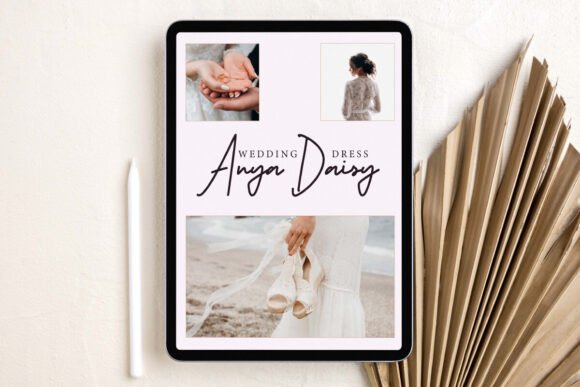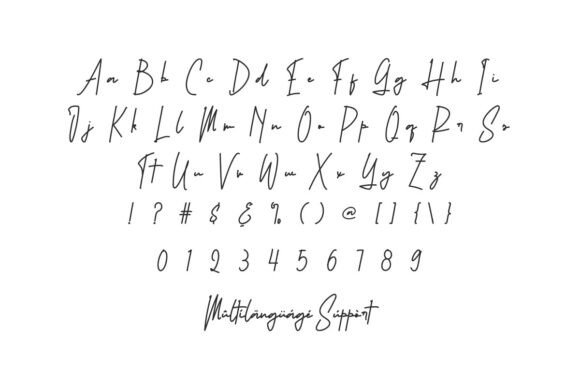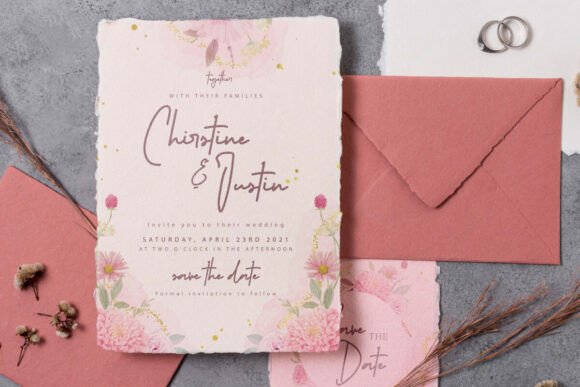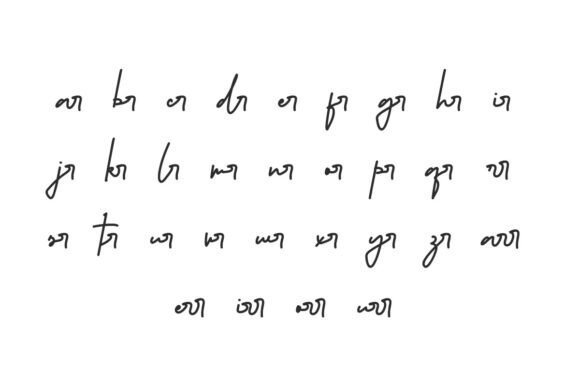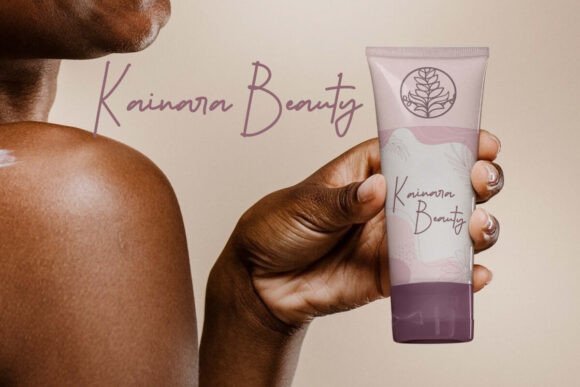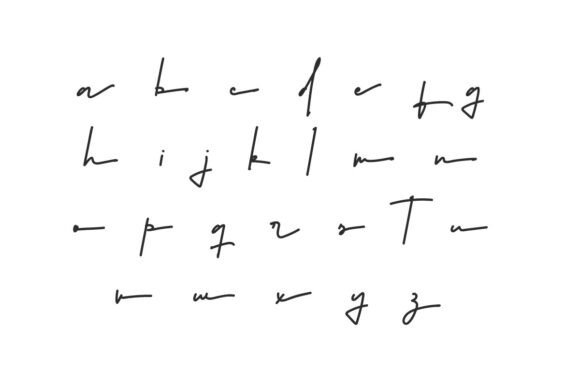
Hari Yang Indah Font: Elevate Your Designs with Elegance
Are you a designer or crafter looking for a font that can add a touch of elegance and sophistication to your projects? Look no further than Hari Yang Indah Font, a beautiful handwritten font with a light monoline lettering style. This stunning font is perfect for a wide range of design applications, from branding and packaging to stationery and digital media.
What Makes Hari Yang Indah Font So Special?
Hari Yang Indah Font boasts its own unique charm that sets it apart from other fonts. Its light monoline lettering style gives it a delicate and refined look that’s perfect for designs that require a touch of sophistication. Whether you’re creating a logo, brochure, or social media graphic, this font is sure to elevate your design and make it stand out.
One of the best things about Hari Yang Indah Font is its versatility. It’s perfect for a wide range of design applications, including:
- Apps: Create a stunning app design that showcases your brand’s personality.
- Brand Logo: Establish your brand’s identity with a beautiful and memorable logo.
- Brochure: Create a brochure that effectively communicates your message and showcases your products or services.
- Catalog: Design a catalog that’s both informative and visually appealing.
- Cover: Create a stunning cover design for your book, magazine, or digital publication.
- Creative Template: Use Hari Yang Indah Font to create a unique and eye-catching template for your next design project.
- Greeting Card: Add a personal touch to your greeting cards with this beautiful font.
- Invitation: Create stunning invitations that set the tone for your event or celebration.
- Label: Design labels that are both functional and visually appealing.
- Mockup: Use Hari Yang Indah Font to create a realistic mockup of your design.
- Price Tag: Create price tags that are both informative and visually appealing.
- Product Packaging: Elevate your product packaging with a beautiful and elegant font.
- Screen Print: Use Hari Yang Indah Font to create stunning screen prints for your next design project.
- Signage: Create eye-catching signage that effectively communicates your message.
- Signature: Add a personal touch to your signature with this beautiful font.
- Stationery: Create stunning stationery that showcases your brand’s personality.
- Sticker: Design stickers that are both fun and visually appealing.
- Title: Use Hari Yang Indah Font to create stunning titles for your next design project.
- Watermark: Add a touch of elegance to your watermark with this beautiful font.
- Website: Use Hari Yang Indah Font to create a stunning website that showcases your brand’s personality.
Why Choose Hari Yang Indah Font?
There are many reasons why designers and crafters choose Hari Yang Indah Font for their projects. Here are just a few:
- Unique and elegant design: Hari Yang Indah Font has a unique and elegant design that’s sure to elevate your projects.
- Versatile: This font is perfect for a wide range of design applications.
- Easy to read: Hari Yang Indah Font is easy to read, making it perfect for body text and headings.
- Scalable: This font is highly scalable, making it perfect for use in a variety of design applications.
Tips for Using Hari Yang Indah Font
Here are a few tips for using Hari Yang Indah Font in your designs:
- Use it sparingly: While Hari Yang Indah Font is beautiful, it’s best to use it sparingly to avoid overwhelming your design.
- Pair it with other fonts: Experiment with pairing Hari Yang Indah Font with other fonts to create a unique and visually appealing design.
- Adjust the size and color: Adjust the size and color of Hari Yang Indah Font to suit your design needs.